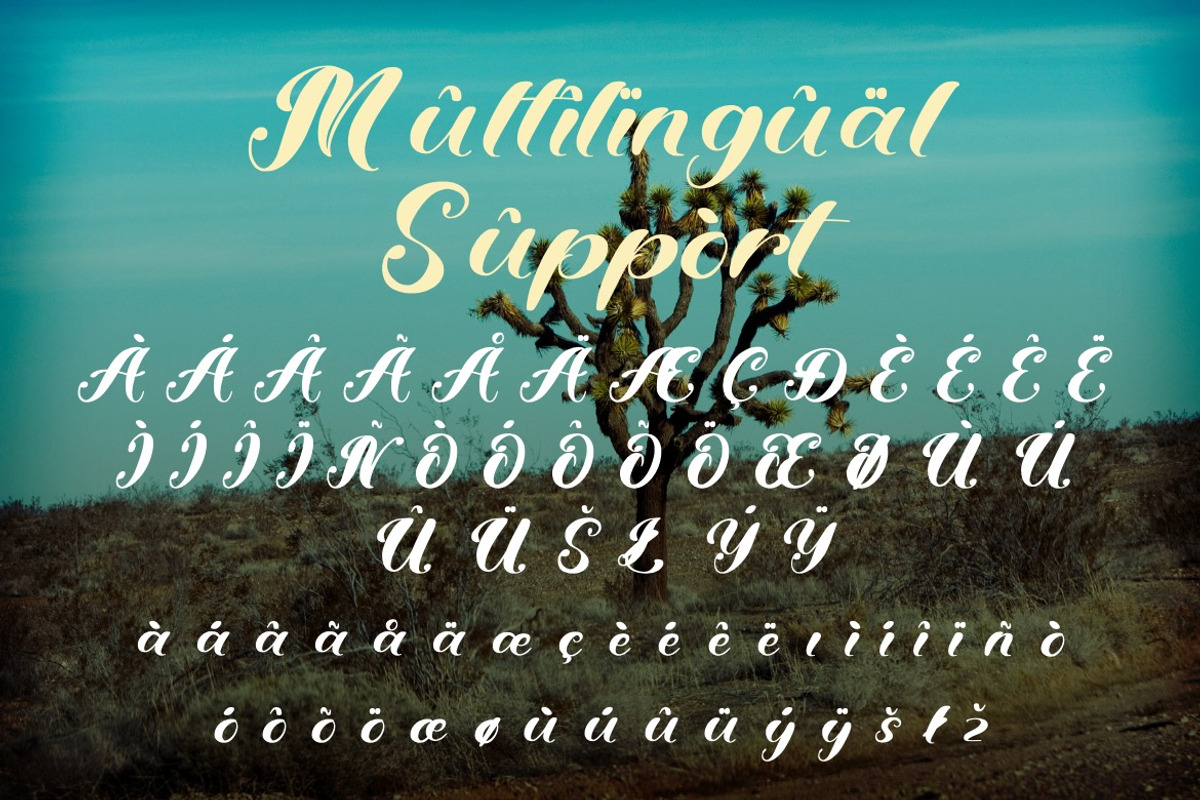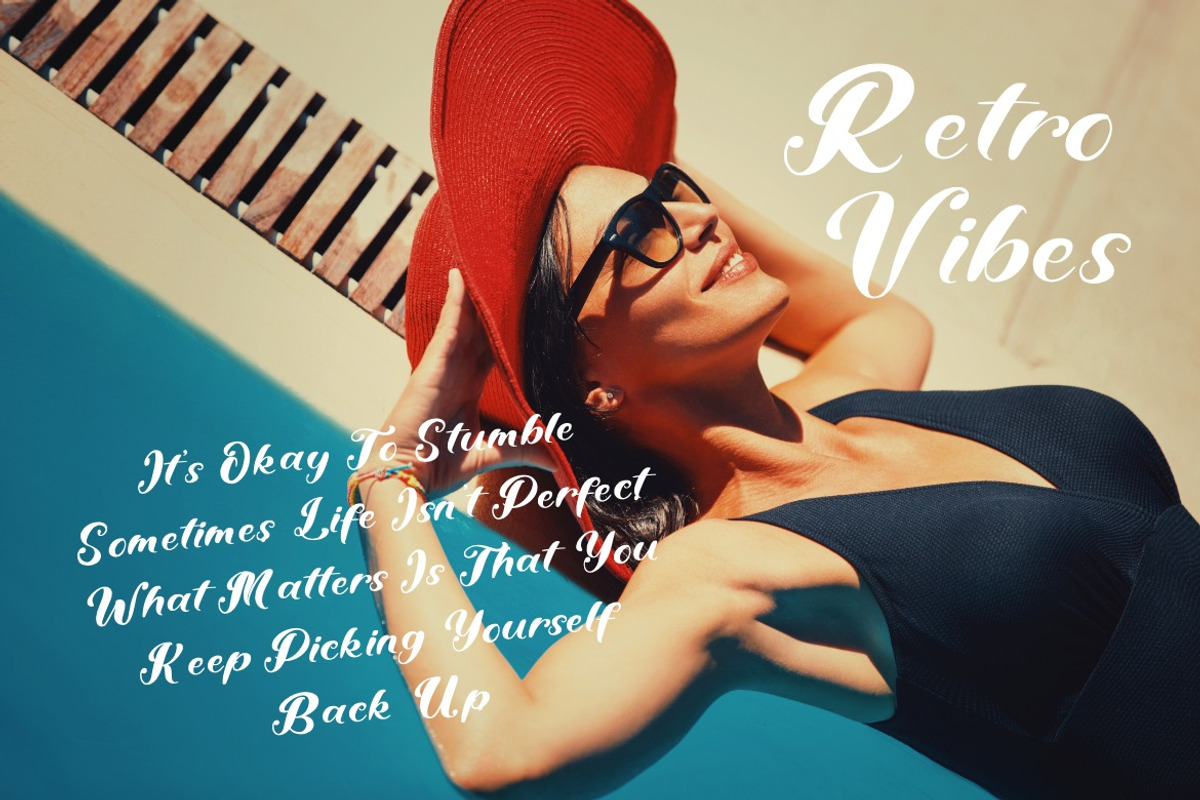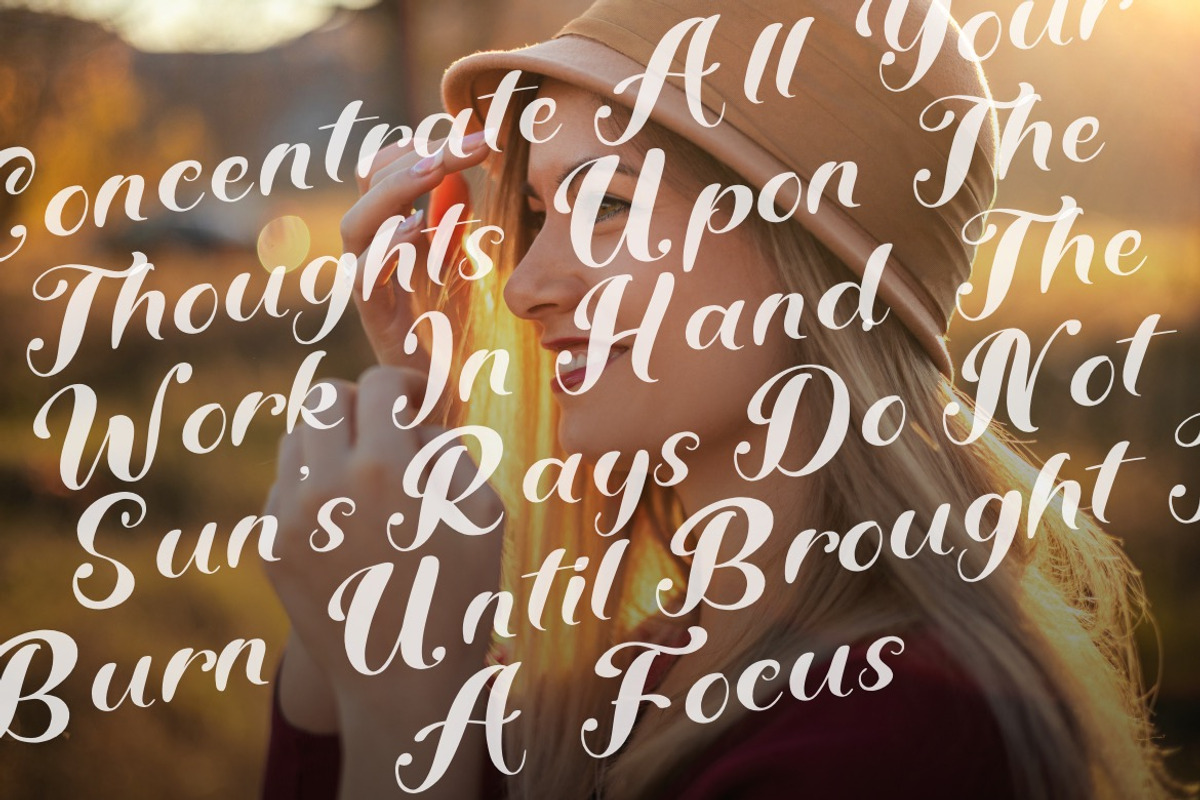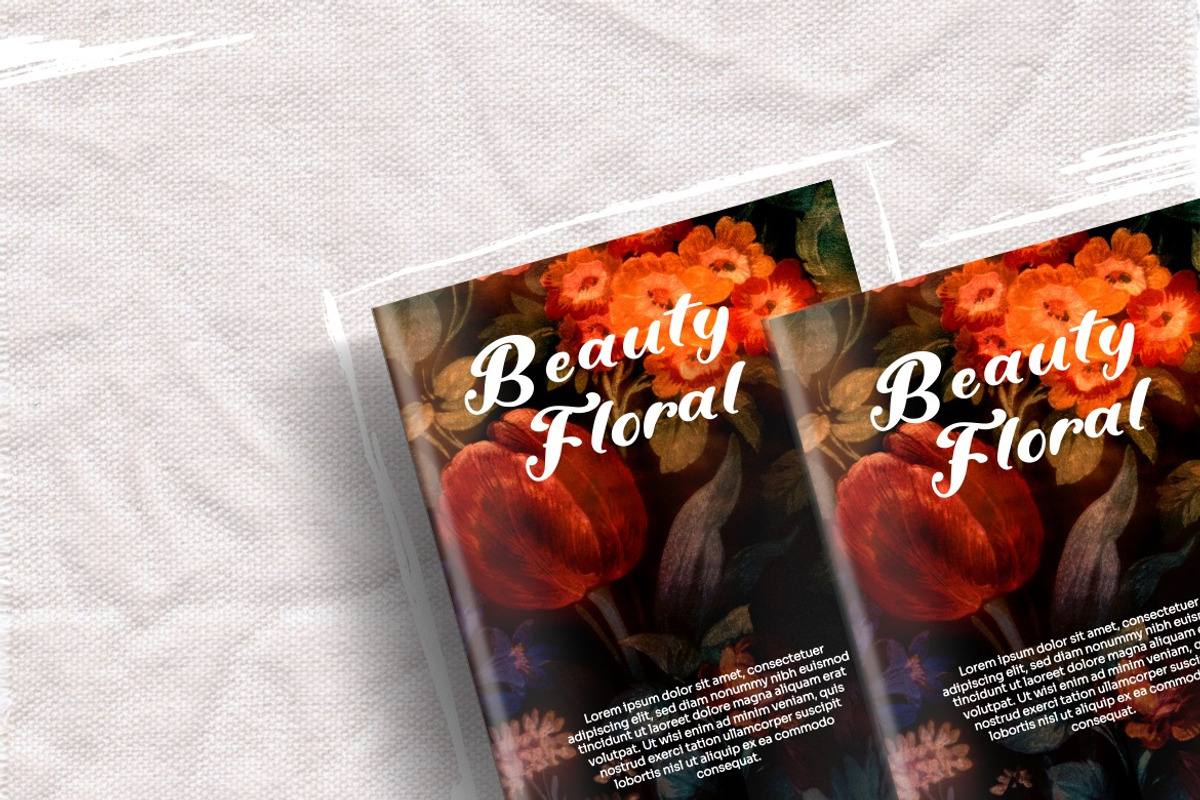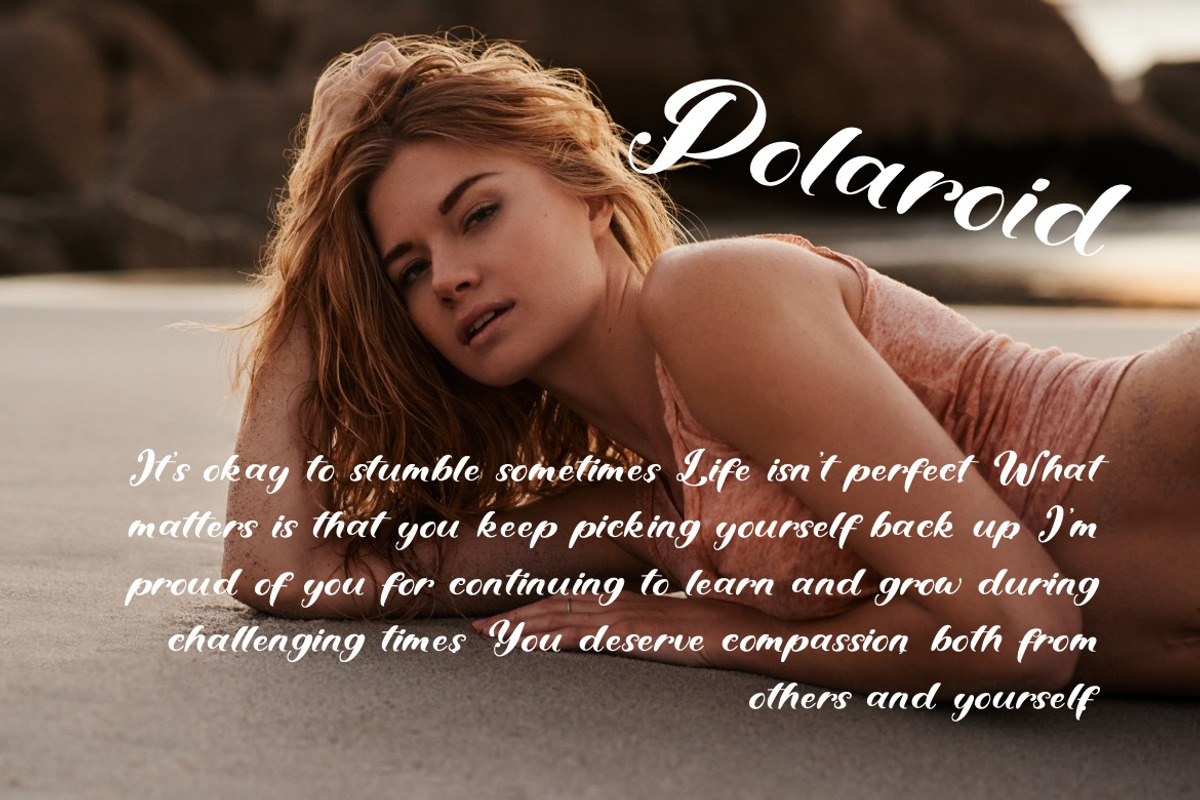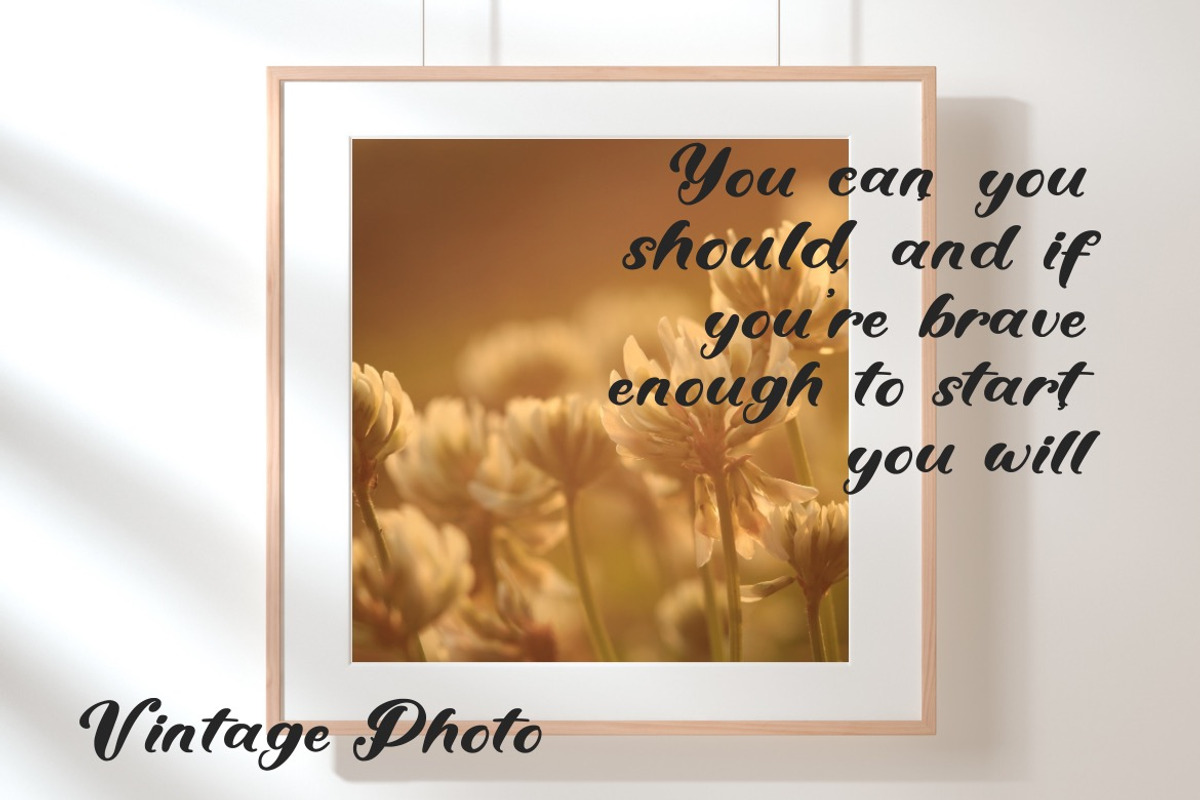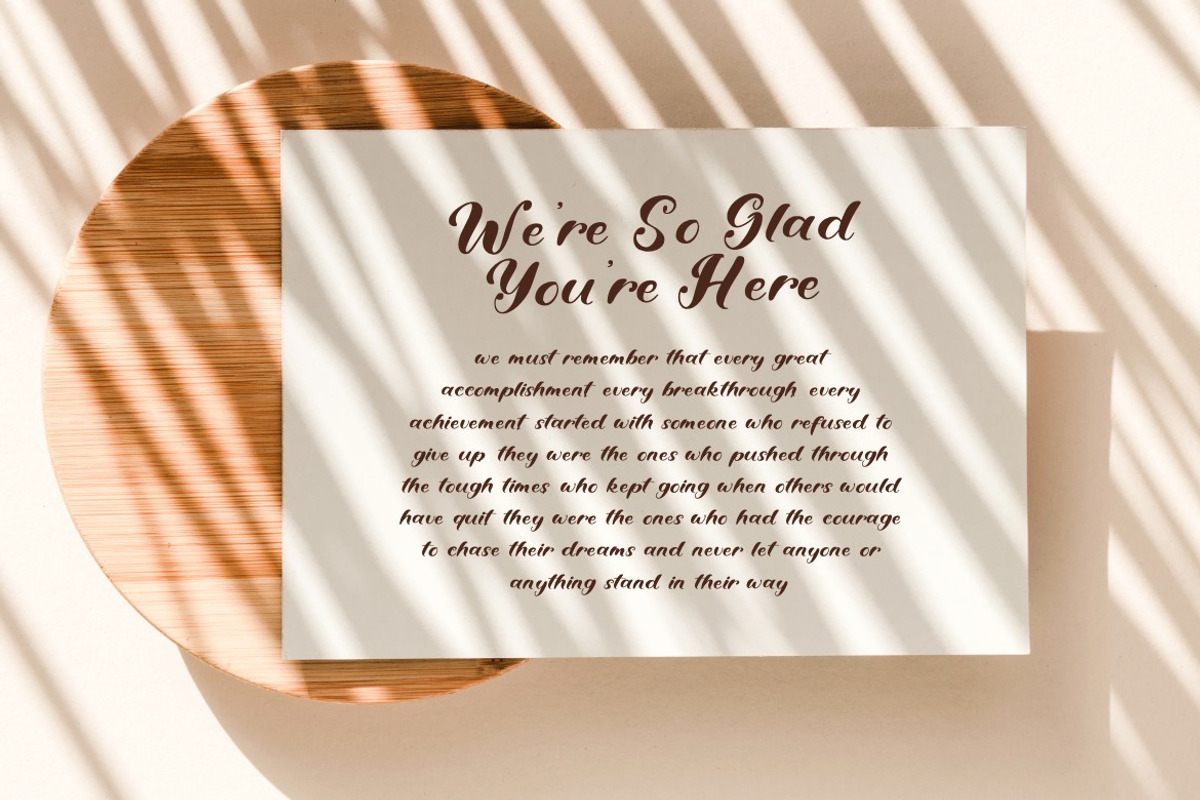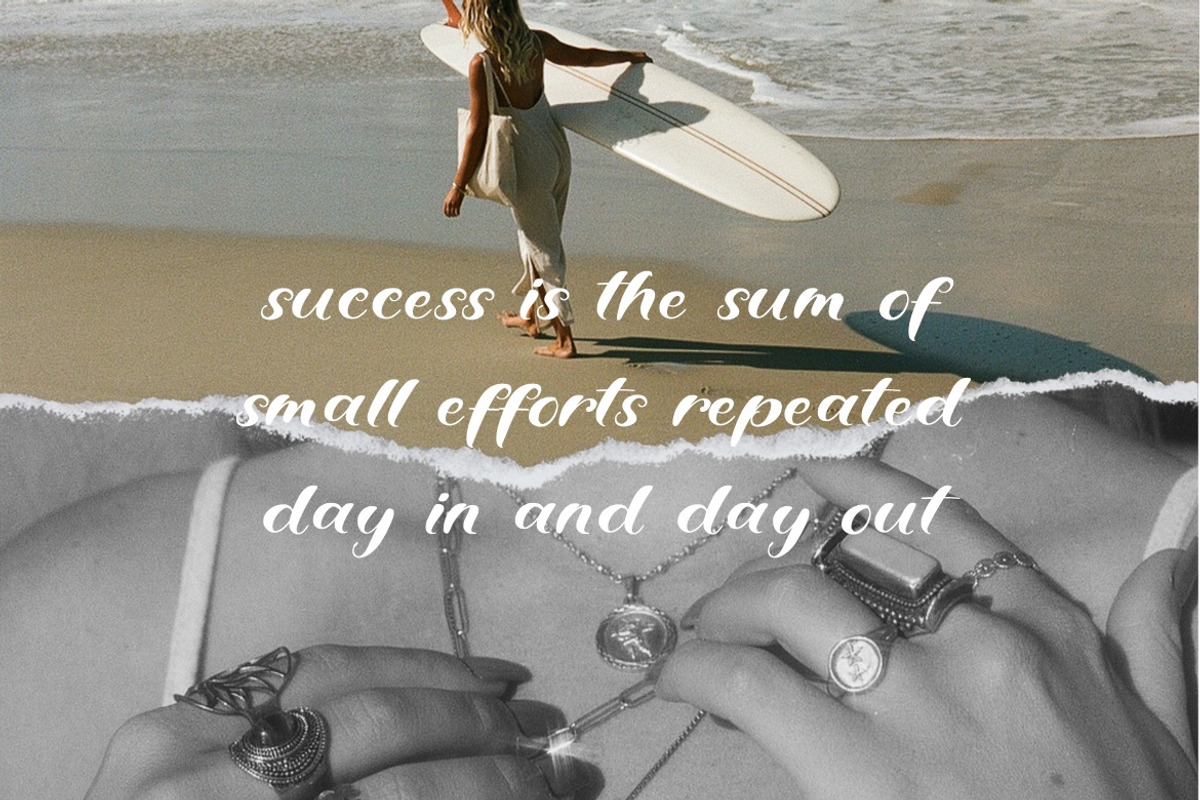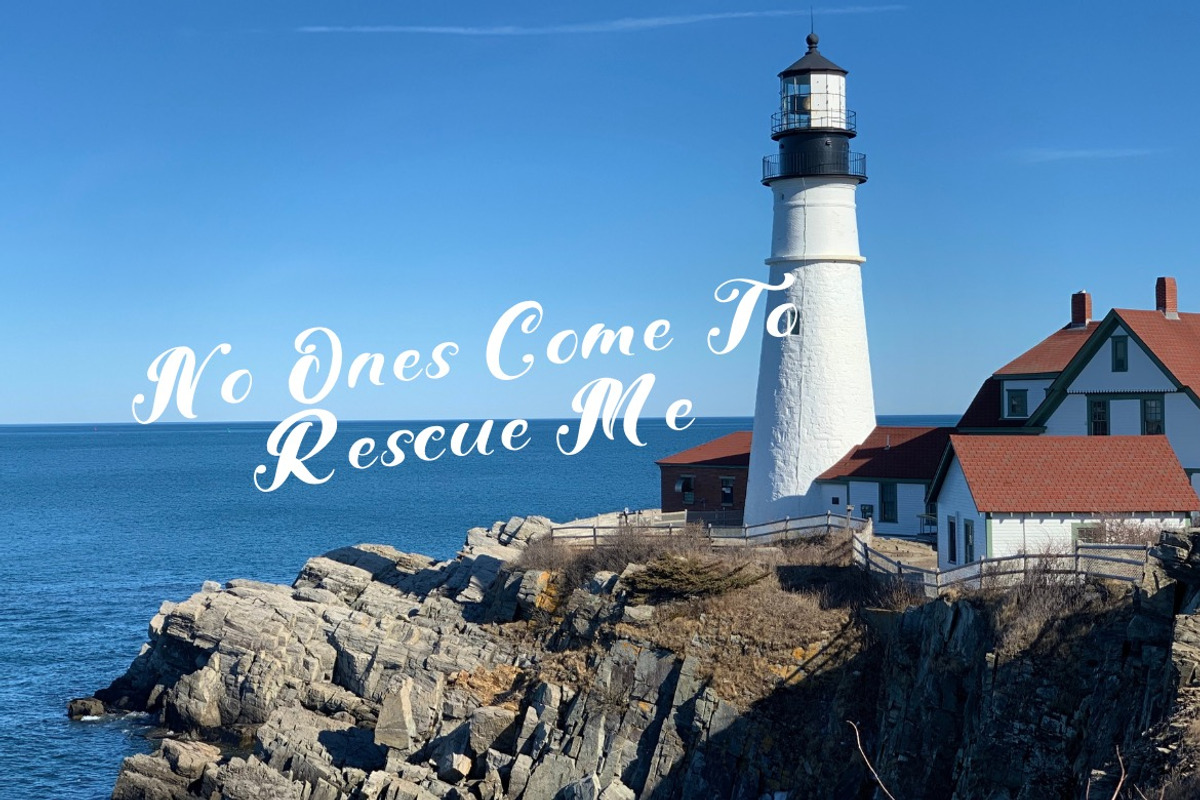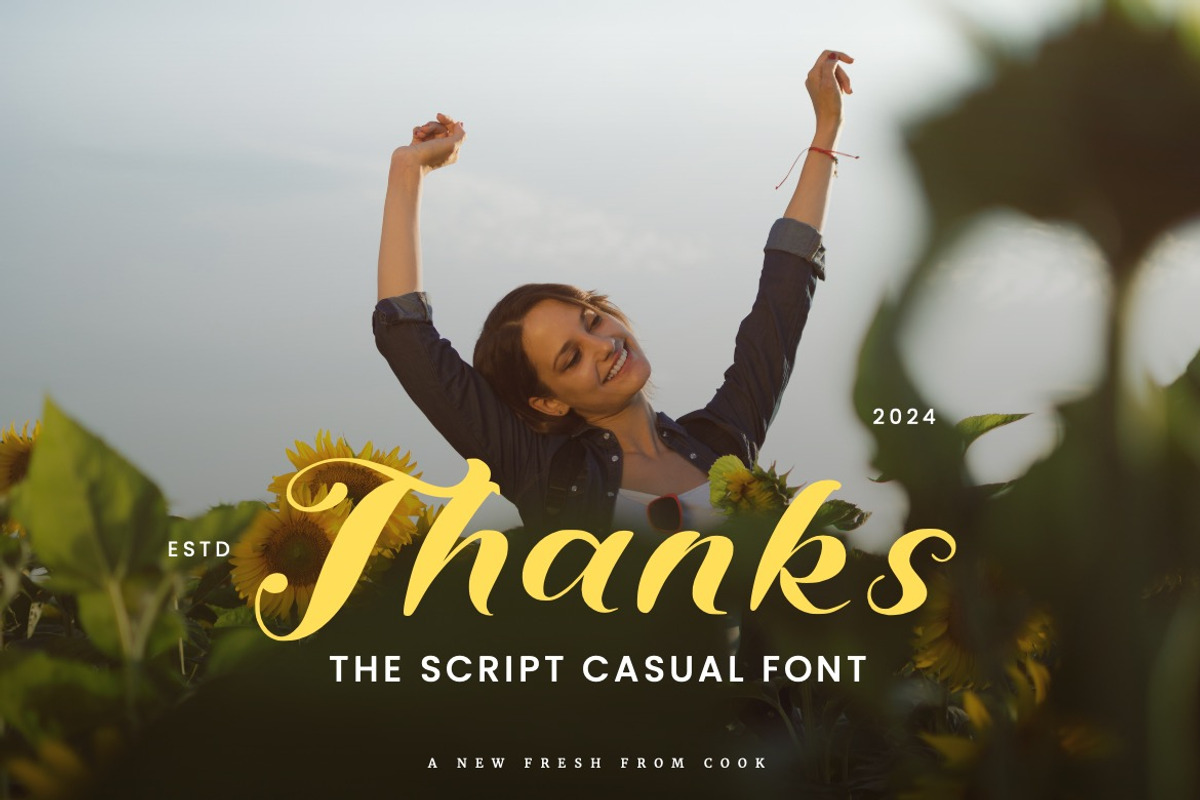
Witches Otifatz - Script Casual Font
Introducing Witches Otifatz - Script Casual Font
This Font is a delicate, elegant and flowing handwritten font. It has beautiful and well as a unique blend of ligatures a letter, so that the authors compose it with a and little swirly embedding, so that a modern font is formed and ready to make a statement by adding elegant and unique flair to your next design project. Add it to your most creative ideas and notice how it makes them come alive!
• Alternate & Ligature